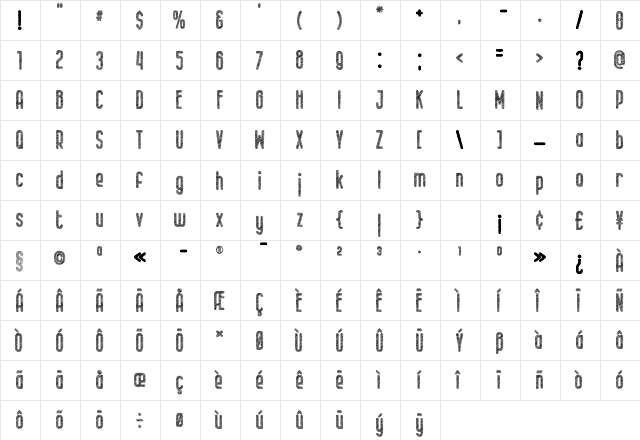
Kid Knowledge 2 Rustic Regular
Design Context for Kid Knowledge 2 Rustic Typeface
Kid Knowledge 2 Rustic offers clean, dependable letterforms without strong stylistic allegiance, making it a practical choice for designers who need flexibility.